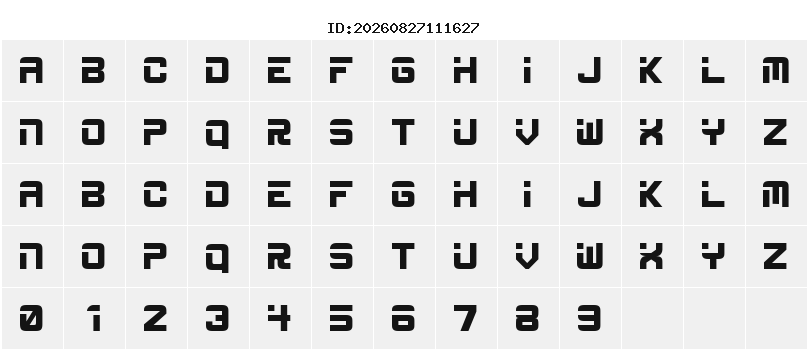
• Font Name: 263-CAI978
• Full Font Name: 263-CAI978
263-CAI978.ttf is a modern, elegant sans-serif font designed for ultimate readability and visual harmony. Perfect for branding, headlines, web design, and print materials.